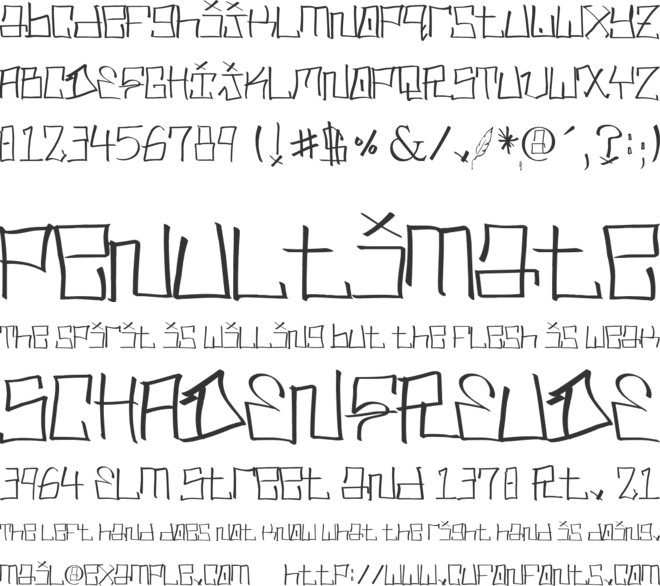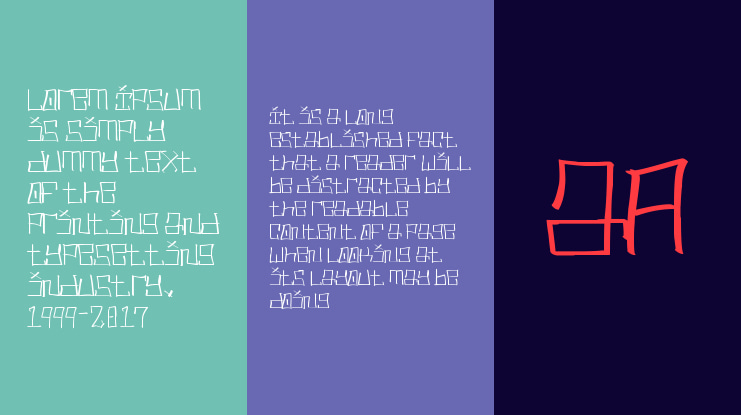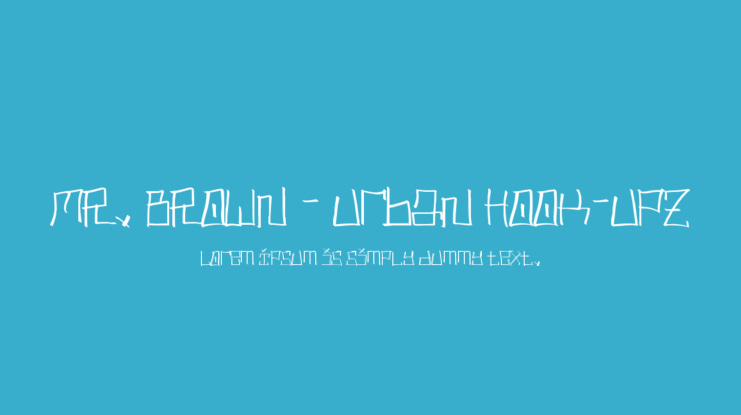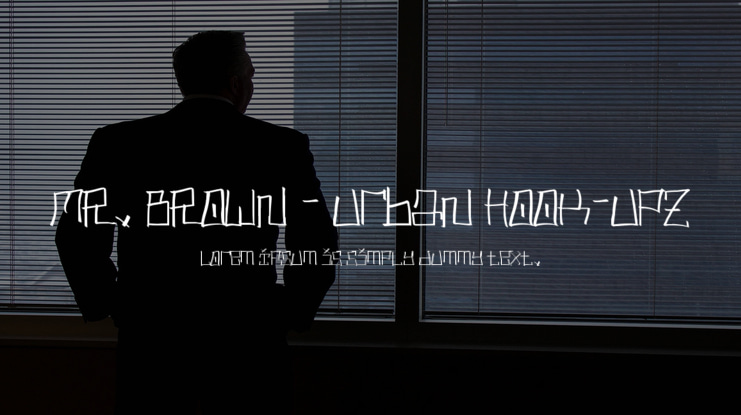
MR. BROWN - Urban Hook-Upz Font
One of My Original 1990's Graffiti Hand-Styles
now Called, "Mr. Brown".
( In Memory of My Catwaba Brown Family. )
* Daniel Brown → James Clifton Brown, Sr. → William Brown, II → William Brown * "SWAMPS OF NORTH CAROLINA"
Cheraw Tribe, Iswä Tribe, (Catawba: Iswa - "people of the river" (Originals)